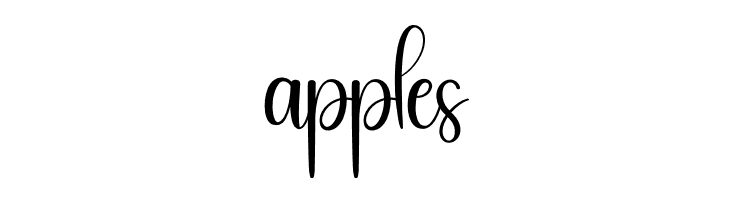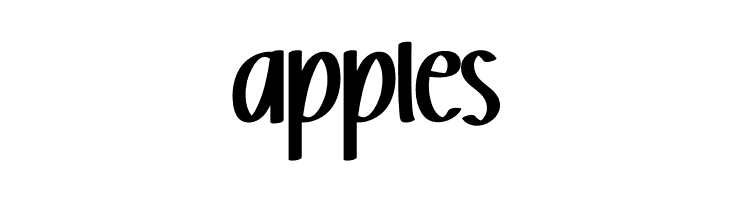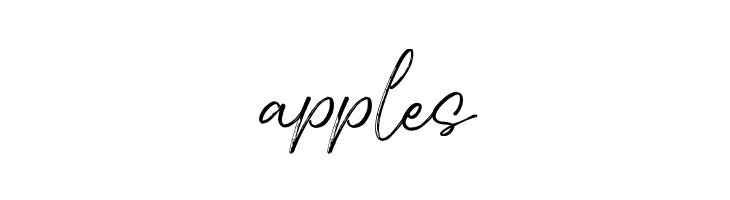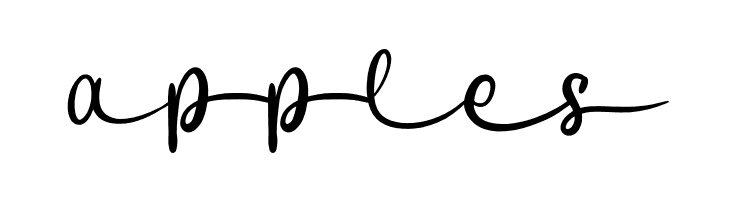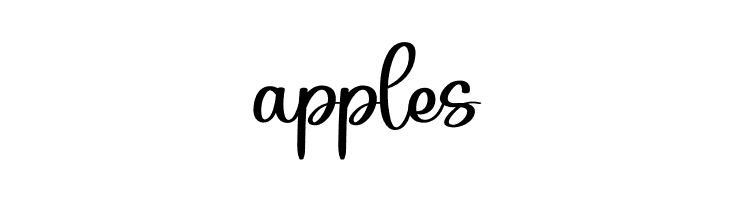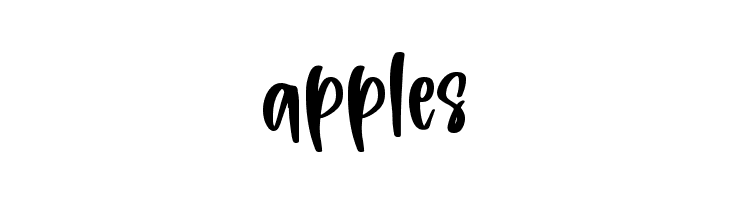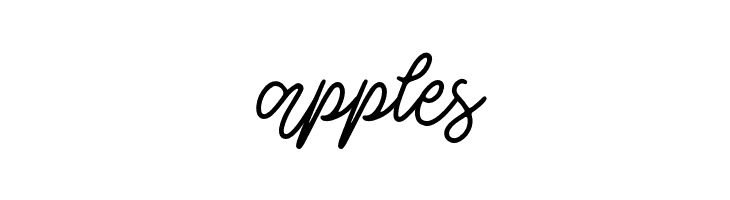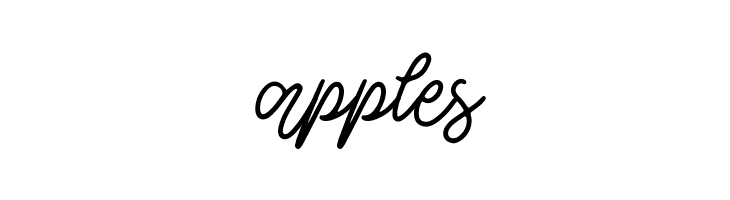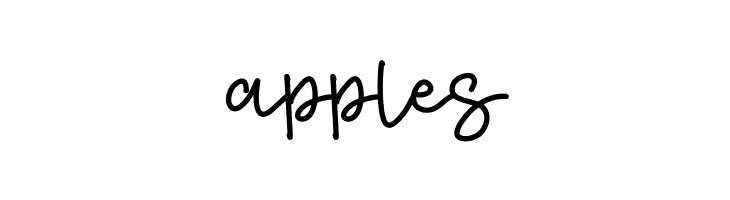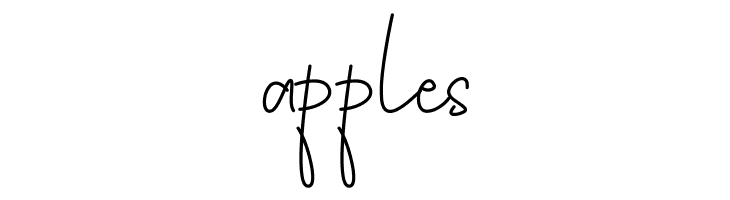
( Fonts by Inermedia Studio )
Playful handwritten font with rounded edges.
( Fonts by Dm Letter Studio )
Playful and bold handwritten font.
( Fonts by Letterafa Studio )
( Fonts by Etik Fatimah )
A playful, elegant script font with a handwritten style.
( Fonts by Pinisiart )
( Fonts by Nina )
A playful, bubbly font with a bold, hand-drawn style.
( Fonts by Staircase Studio )
Expressive handwritten script with playful, dynamic strokes.
( Fonts by Rainbow Fonts )
A playful, handwritten font with dynamic and irregular strokes.
( Fonts by Pau Reds )
( megan-toy.yolasite.com )
A playful, heart-accented font with a whimsical and friendly style.
( Fonts by NihStudio )
( Fonts by Lettersweet Studio )
Playful handwritten script font.
( Fonts by Maulana Creative )
A fluid and elegant script font with interconnected, graceful strokes.
( Fonts by Andi Moz )
A whimsical and elegant script font with decorative swirls and loops.
( Fonts by Andi Moz )
A playful, bold handwritten font with a whimsical and friendly style.
( Fonts by Docallisme HAS )
A playful, handwritten font with tall, narrow letters and smooth, rounded strokes.
( Fonts by Fillo Graphic )
A fluid and elegant script font with a handwritten feel.
( illustrateddaydreams.tumblr.com/ )
A playful, handwritten font with a casual and lively style.
( recklessweeknights.tumblr.com )
A playful, handwritten font with quirky, irregular strokes.
( Fonts by Saeful Bahri )
An elegant, artistic script font with a whimsical, handwritten style.
( Fonts by Forberas Club )
Casual handwritten script with smooth, flowing strokes.
( Fonts by Forberas Club )
Casual handwritten script font with flowing, connected lowercase letters and upright uppercase.
( www.webworks-usa.com )
A playful, cursive handwritten font with fluid, connected letters.
( Fonts by Arthy )
( Fonts by Vunira Design )
Casual handwritten script with varying stroke thickness.
( Fonts by Vunira Design )
Casual handwritten script font.
( Fonts by ffontspedia )